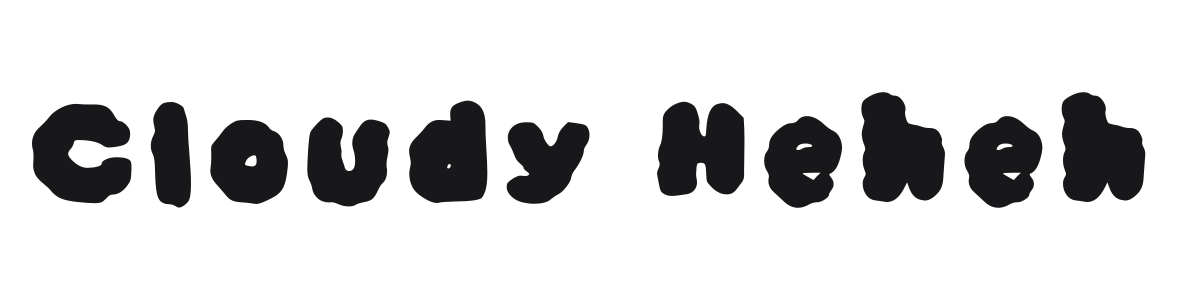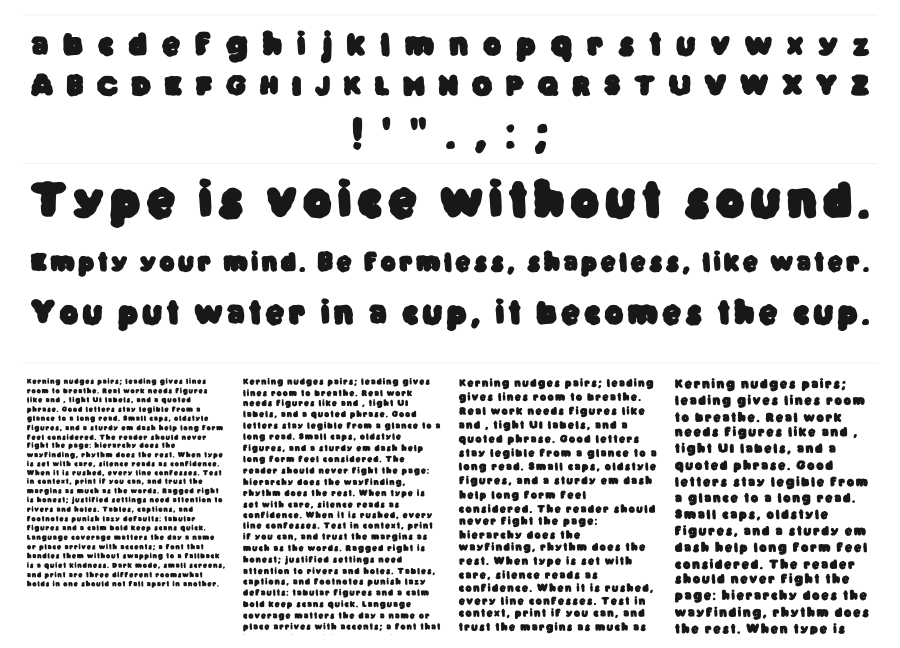
Cloudy Heheh
Cloudy Heheh is a heavy, bubbly display font with thick rounded strokes that puff out like clouds or inflated rubber. Every character has a warm, organic wobble to it, somewhere between 1970s groovy lettering and children's book illustration. It brings immediate personality to headlines, packaging, and anything that needs to feel lighthearted and fun.